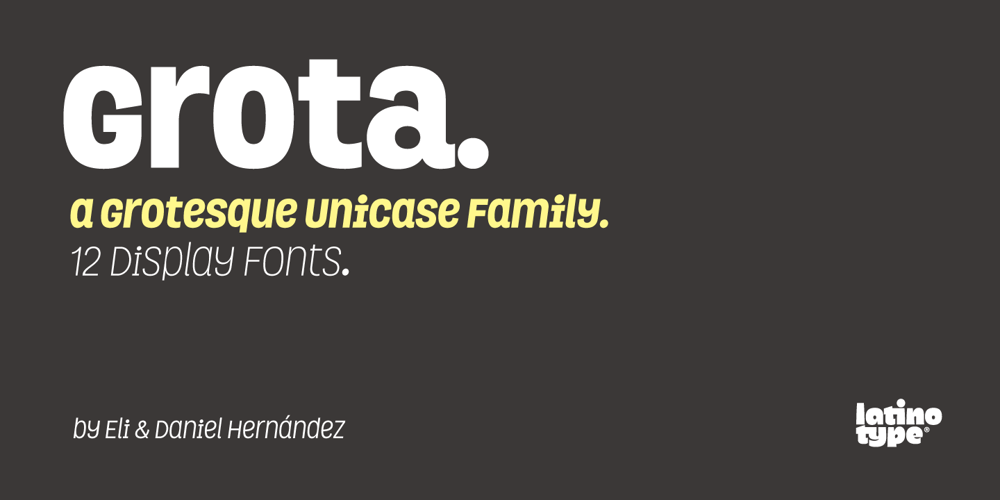
Grota Font Family was designed by Daniel Hernández, Eli Hernández and published by Latinotype. Grota contains 11 styles and family package options. Grota is a very expressive font, has a gestural character inspired by the hand lettering . Grota is grotesque, unicase and exceptional. It has six weights ranging from thin to black with their italics. It is ideal for logos, brands, magazines, headlines, books. etc. Photography by Matías Troncoso